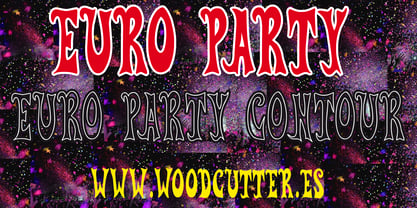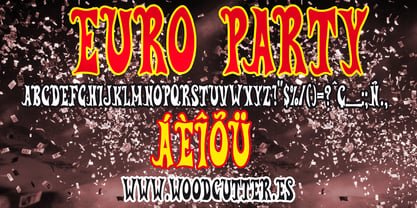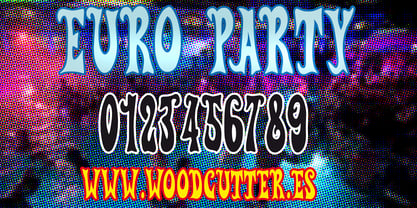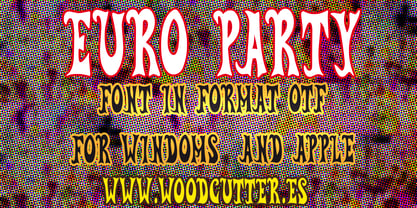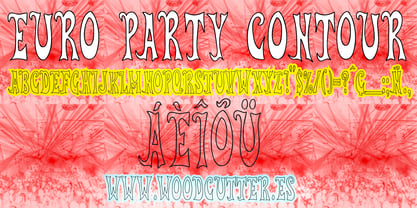
Euro Party
by Woodcutter
The Euro Party Font Family was designed by Jordi Manero and published by Woodcutter. Euro Party contains 2 styles and family package options. More about this family
“Euro Party” is an all-caps typeface family that celebrates the festive and vibrant spirit of European retro design. Each letter is crafted with dynamic lines, bold strokes, and a display style reminiscent of the visual aesthetics of the 1970s and 1980s. Its solid and readable structure is infused with a playful rhythm that brings energy and movement, making every word dance across the page. “Euro Party” includes accent marks, making it perfect for multilingual compositions. The geometric shapes and slightly rounded edges give it a friendly feel, while its strong visual impact makes it ideal for posters, album covers, ad campaigns, or branding projects seeking a cheerful vintage personality. The family includes two complementary styles: the main “Euro Party,” more decorative and expressive, and “Euro Party Black,” with bold, solid characters perfect for strong and striking headlines. This duality offers creative flexibility without losing the playful retro identity that defines the font. “Euro Party” is more than just a typeface — it’s a graphic invitation to celebrate design with style and color.